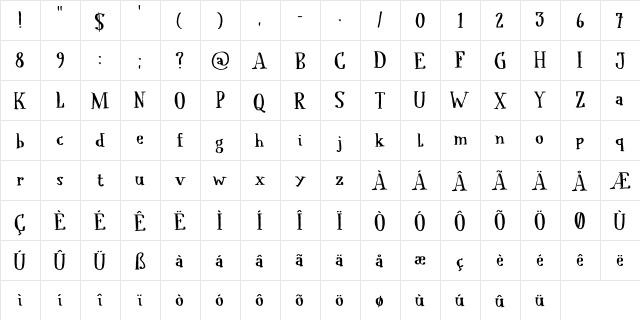
Cadora Woods DEMO Regular
Design Context for Cadora Woods DEMO Typeface
Cadora Woods DEMO taps into classic Western woodtype traditions — bold, characterful, and impossible to ignore.
A natural fit for craft spirits, ranch branding, rodeo events, and Americana-inspired design work.
Font Pairing: Combine Cadora Woods DEMO with a simple slab or neutral sans — period-accurate companions reinforce the vintage feel without competing for attention.
Pro Tip: Use Cadora Woods DEMO for short, impactful bursts of text — it shines in poster headlines and product names rather than extended copy.